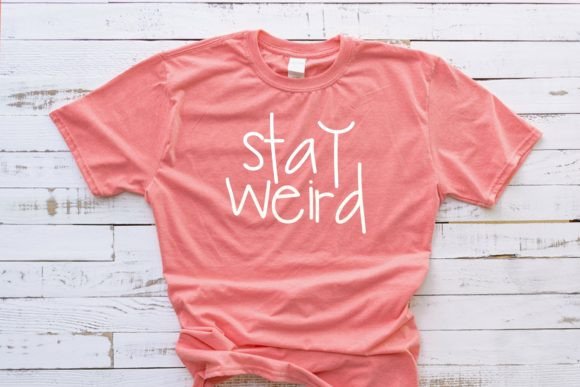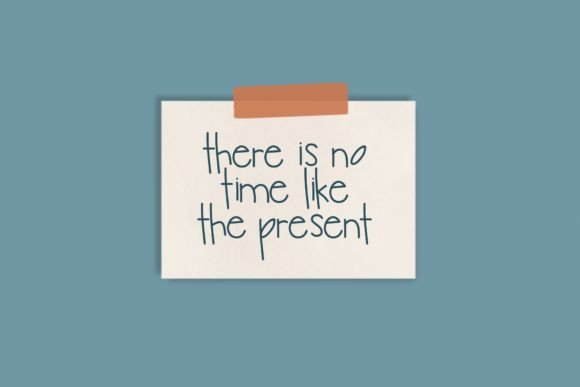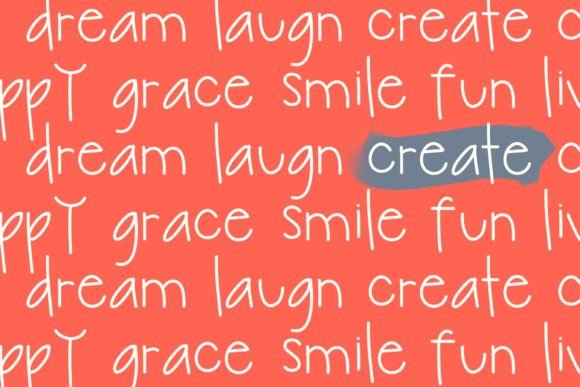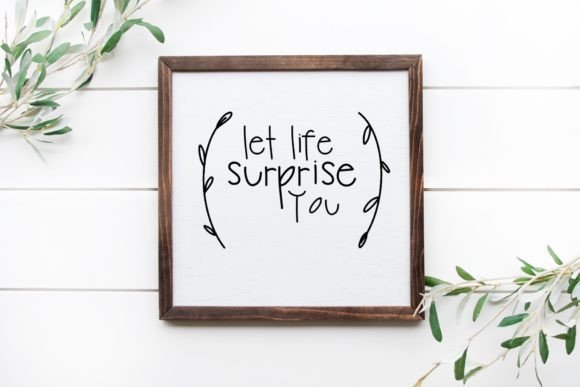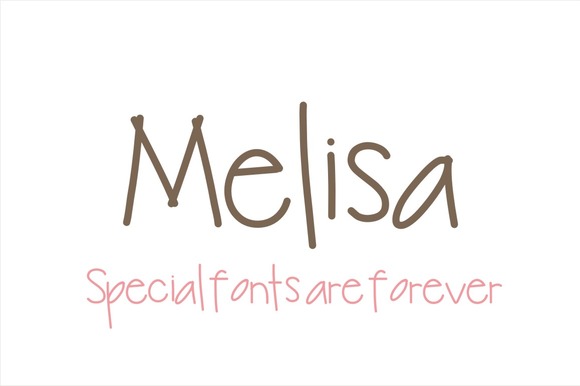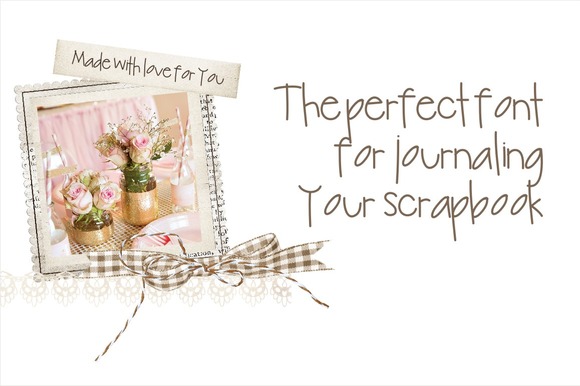
HomeScript FontsMelisa Font Script Fonts Melisa Font FacebookXPinterestWhatsApp Melisa Font Poster 2 Melisa Font Poster 3 Melisa Font Poster 4 Melisa Font Poster 5 Melisa Font Poster 6 Melisa Font Poster 7 Melisa Font Poster 8 About Melisa Font Melisa is a beautiful, hand written typeface. DOWNLOAD NOW People also explored Oscar Wright Font Memo Wish Font Poster Moderne JNL Font Sizzamo Font Hanalei Pro Shawaki Happy Birthday Font Madagaskar Font Elita Script Font 325 0 TagsMelisa Font Previous articleMiranda FontNext articleLola Family Font LEAVE A REPLY Cancel reply Comment: Please enter your comment! Name:* Please enter your name here Email:* You have entered an incorrect email address! Please enter your email address here Website: Save my name, email, and website in this browser for the next time I comment. Personal Use Free Bollado Personal Use Free Read more about this font Drip October Font Personal Use Free Read more about this font Bolt Electric Personal Use Free Read more about this font Squealer Personal Use Free Read more about this font BLOG 5 Fonts That Will Dominate Design Trends in 2026 5 Fonts for 2026 That Will Dominate Design Trends Typography plays a critical role in visual communication, and as we look ahead to 2026, it’s... Free vs Paid Fonts: Why Investing in Premium Fonts Is Worth It How to Cut Any Font on Cricut: Convert a Font to SVG (Free) How to Install and Use Fonts on Windows, macOS, and Web Projects